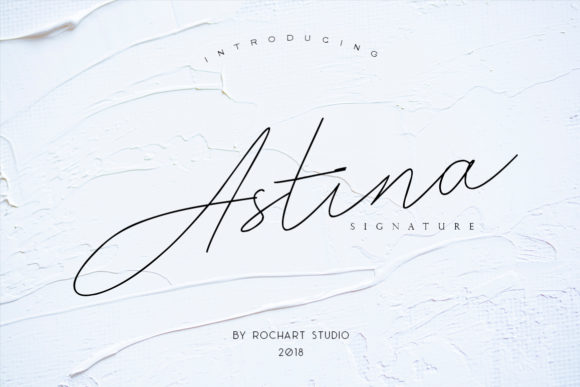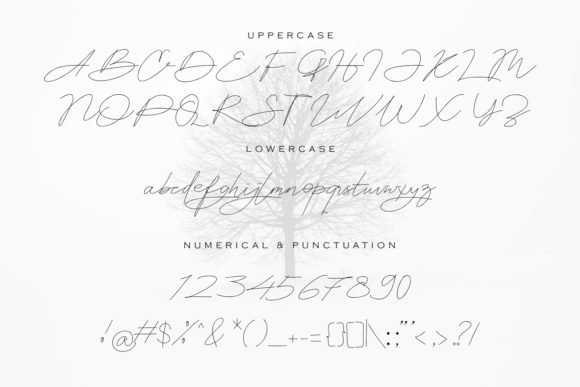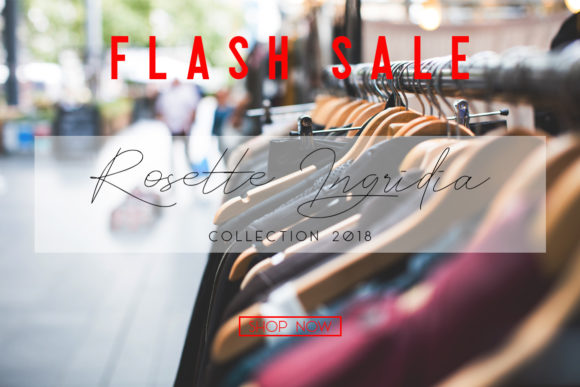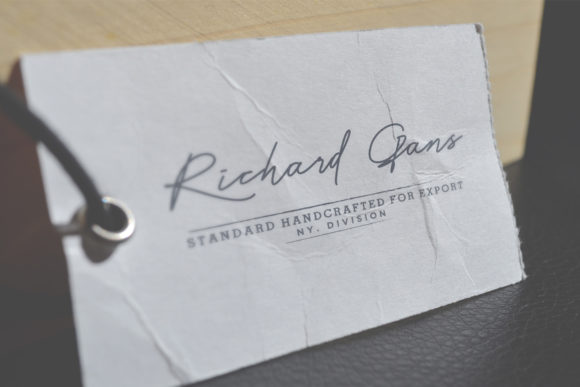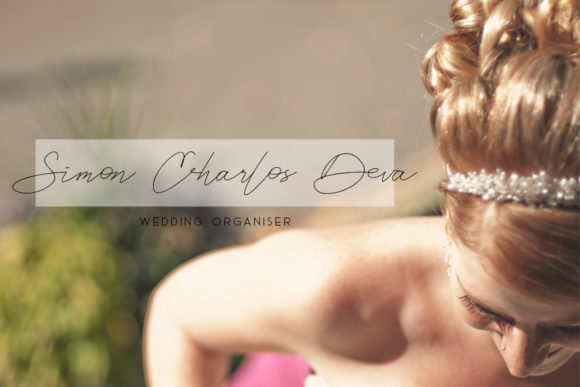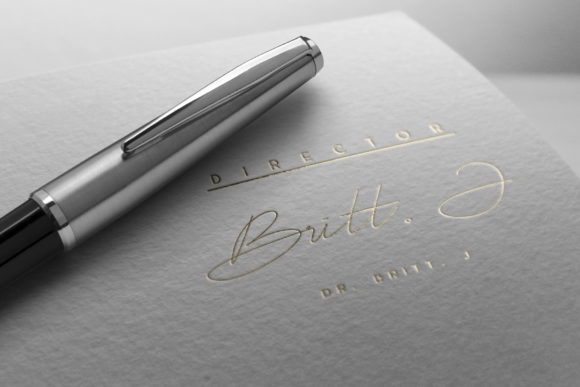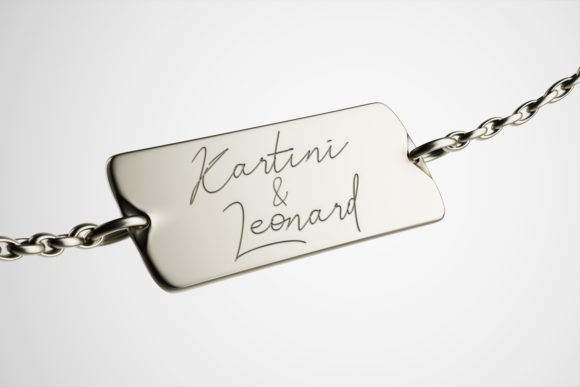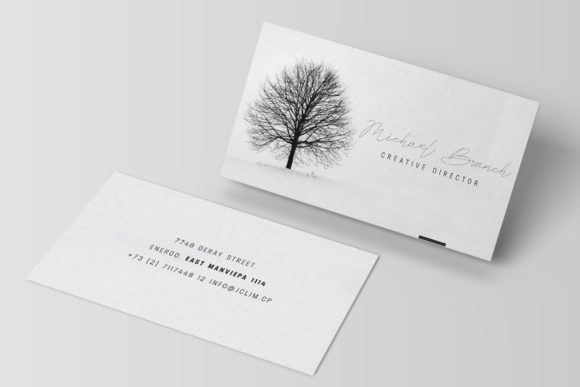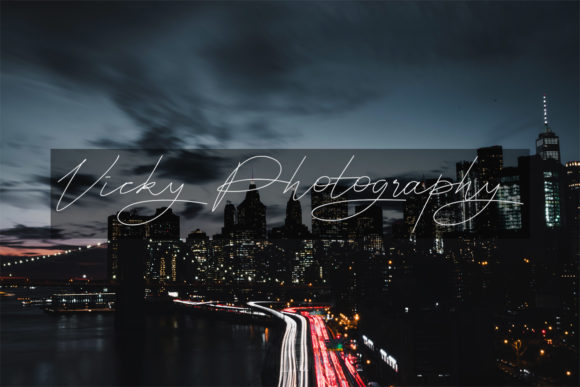
Astina Font
About Astina Font
Astina stands out as a contemporary handwritten font, characterized by its modern and elegant signature style. This font possesses the unique ability to infuse a luxurious touch into your designs, making it a standout choice for those seeking sophistication in their creative projects.
The distinctive feature of Astina lies in its sleek and modern design, giving it a signature quality that exudes elegance. Each carefully crafted character contributes to the overall aesthetic, creating a visual language that is both refined and captivating.
Whether employed in logos, invitations, posters, titles, or other design applications, Astina effortlessly elevates the overall presentation with a luxurious feel. Its versatility makes it suitable for a myriad of design projects, providing a reliable tool for designers to enhance the visual appeal of their creations.
Astina not only serves as a typographic choice but also as a design element that conveys a contemporary and upscale vibe. The handwritten nature of the font adds a personal and human touch to designs, fostering a connection with the audience. This quality makes Astina particularly well-suited for projects that aim to strike a balance between modernity and a touch of sophistication.
In summary, Astina is more than just a font; it’s a design asset that brings a modern and elegant signature to your creative endeavors. Its ability to seamlessly add a luxurious feel to designs makes it a valuable tool for designers across various applications. Whether applied to branding, promotional materials, or any other design venture, Astina stands as a chic and versatile choice for those who appreciate the fusion of contemporary style and refined aesthetics.